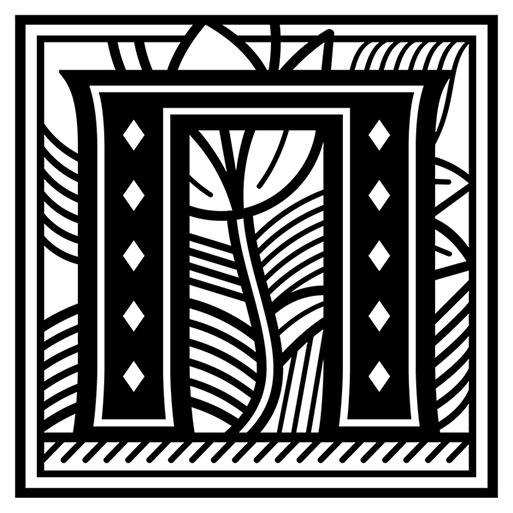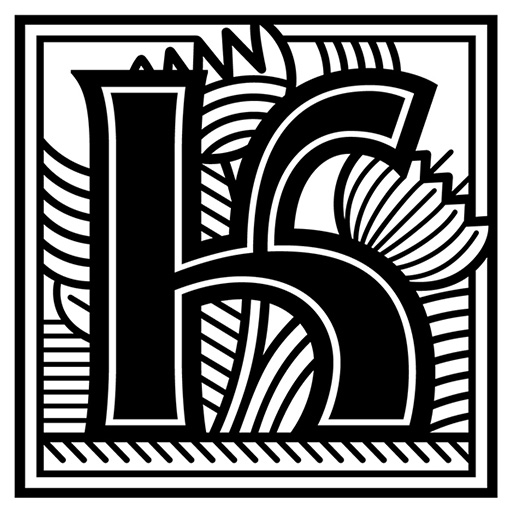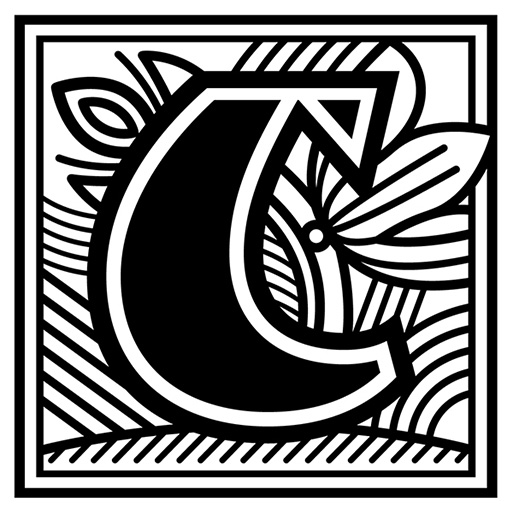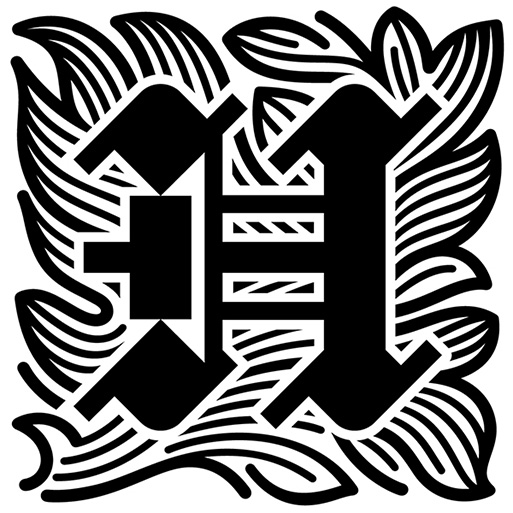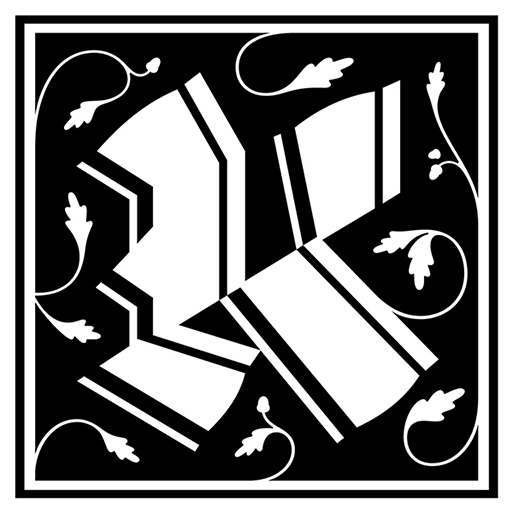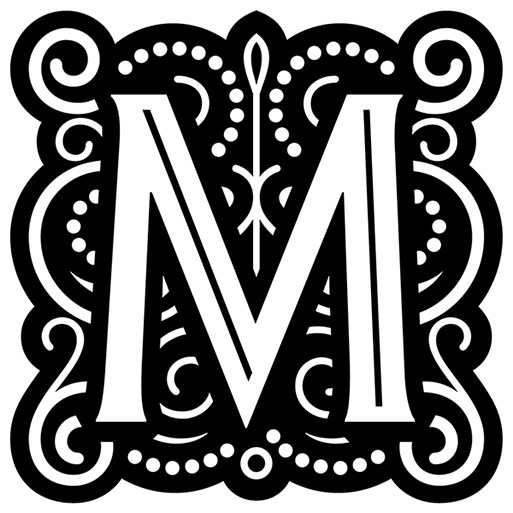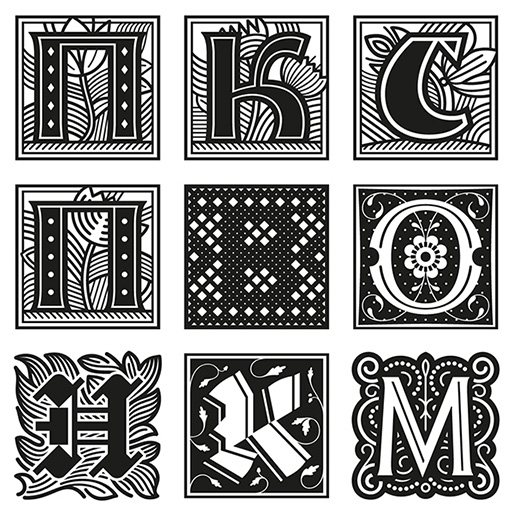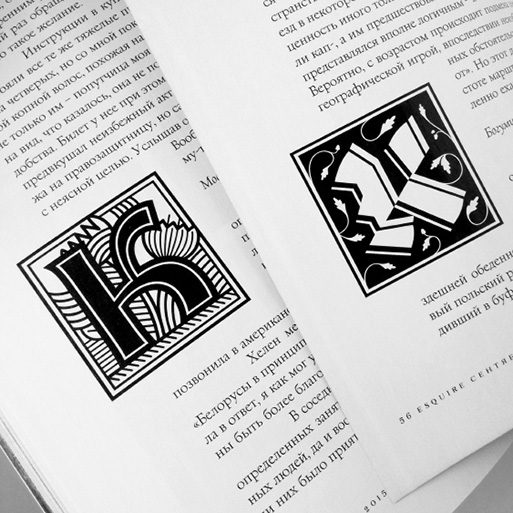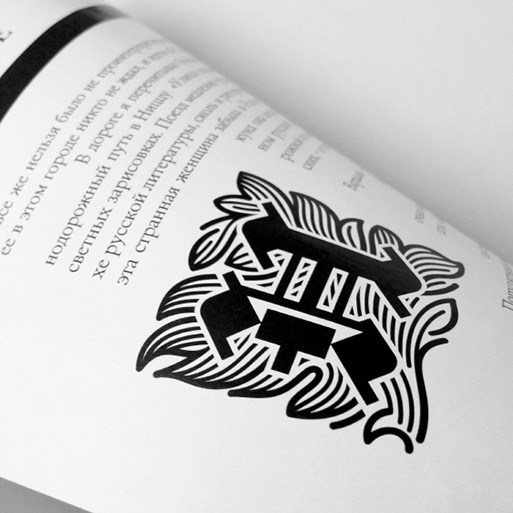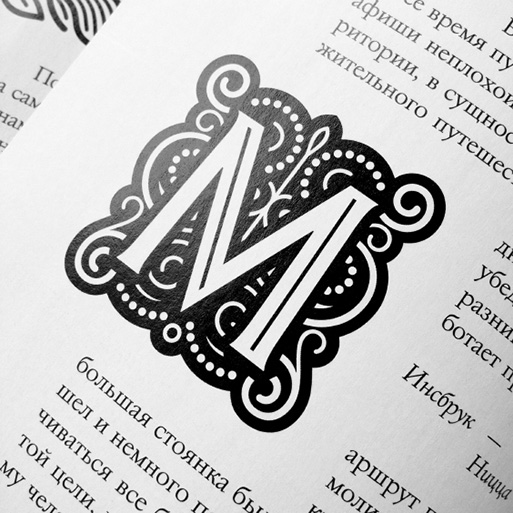
Drop caps are having their moment thanks to Esquire Russia magazine
The practice of using a large letter to mark the start of a text has been around for almost two thousand years with illustrated caps increasing the usability by marking important passages and guiding readers through the text. Specially designed for the September issue of Esquire Russia magazine, Moscow-based designers Yana Kutyina & Andrey Belonogov drew these initials for the story about the travel by train from Moscow to Nice. You can read this story in Russian here.